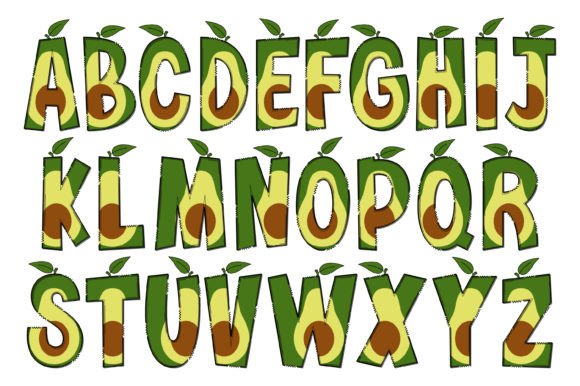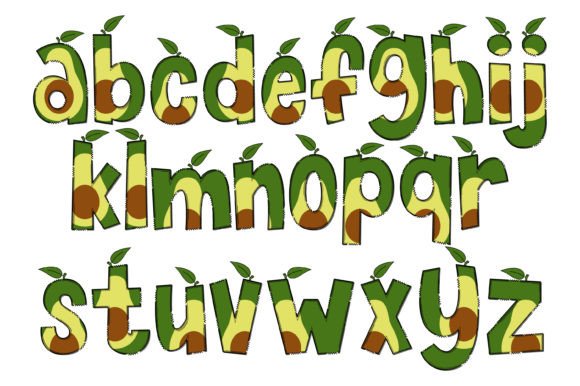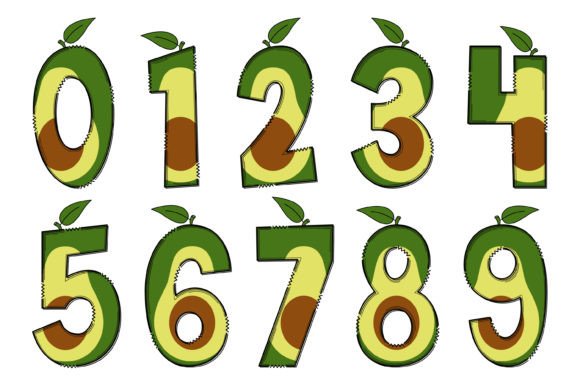
The Perfect Pairing for Your Next Design Project
Have you ever been in the midst of brainstorming a new design project, surrounded by scraps of paper, colored pencils, and a blank canvas, only to be struck with the perfect idea? The excitement is palpable, and the possibilities seem endless. For designers, this moment is what it’s all about – bringing creativity to life and making it tangible.
Enter the Avocado Font, a playful and whimsical typeface designed to add a touch of artistic flair to your next project. Whether it’s a children’s book, a poster, or a greeting card, this font is the perfect companion to help you convey a sense of fun and imagination. With its colorful and easy-to-read design, the Avocado Font is a valuable asset for any designer looking to add a personal touch to their work.
Key Features of Avocado Font
- Unique Characteristics: Avocado Font features a unique blend of modern and vintage elements, with a bold and playful feel.
Avocado Font Review
I recently had the chance to work with the Avocado Font, and I have to say it’s a mixed bag. On the plus side, ✨ the font’s unique blend of modern and organic elements makes it perfect for creative projects where you want to stand out. The rounded edges and subtle texture give it a friendly, approachable feel that’s hard to resist.
One of the things I like most about Avocado is its versatility. ✨ It comes in a range of weights, from light to bold, making it suitable for everything from body text to headlines. The font also includes a variety of language support, which is a definite plus for designers working with international clients.
Limits and Considerations
Of course, no font is perfect, and Avocado is no exception. ⚠️ One of the main limitations I found was the font’s lack of consistency across different screen sizes. At smaller sizes, the letters can become fuzzy and difficult to read. Additionally, the font’s unique style can sometimes make it hard to read for those with vision impairments.
⚠️ Another thing to consider is the font’s limited support for certain languages. While it includes a range of languages, it’s not comprehensive, and you may find yourself needing to supplement with additional fonts.
Overall, I’d say Avocado Font is a solid choice for designers looking for a unique, creative font. While it’s not perfect, its strengths far outweigh its weaknesses. Just be sure to use it judiciously, and consider the limitations when choosing it for your next project.
- Unique blend of modern and organic elements
- Versatile, with a range of weights and language support
- Comes with a variety of language support
- Not ideal for small text sizes or vision-impaired users
- Limited support for certain languages
Avocado Font: A Practical Application Guide
Avocado Font is a versatile font that can be used in a variety of designs, from logos to social media graphics.
1. Creating a cohesive brand identity.
2. Designing social media graphics.
3. Creating a unique and eye-catching logo.
4. Adding a touch of elegance to your designs.
Alternatives to Avocado Font
Great Vibes is a beautiful, handwritten font that can add a touch of elegance and sophistication to your designs. It’s ideal for use in titles, headings, and other prominent text elements. When to use: Wedding invitations, fashion branding, and high-end product packaging.
Great Vibes and Avocado Font share similar hand-drawn qualities, but Great Vibes has a more refined and polished look. Great Vibes is more versatile and can be used in a wider range of applications.